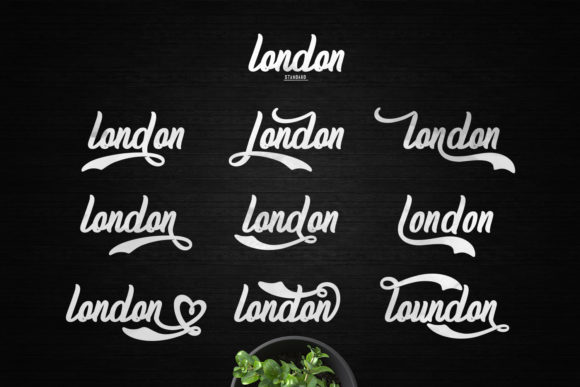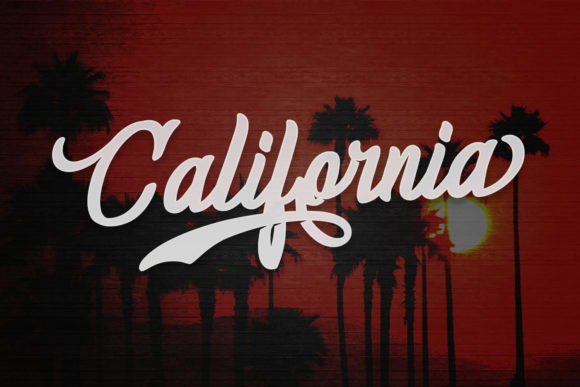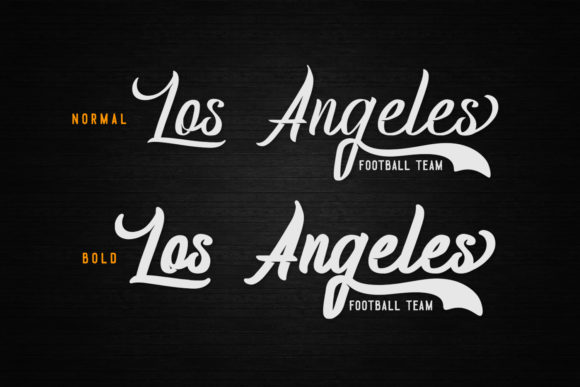
Introduction to Homerun Script Font
Homerun is a classic script font that will turn any design idea into a true standout.
Get inspired by its unique charm .
Key Features of Homerun Script Font
Why Choose Homerun Script Font?
Homerun Script Font offers exceptional quality and versatility, making it a valuable addition to your design toolkit. Whether you’re creating for personal projects or commercial use, Homerun Script Font delivers professional results.